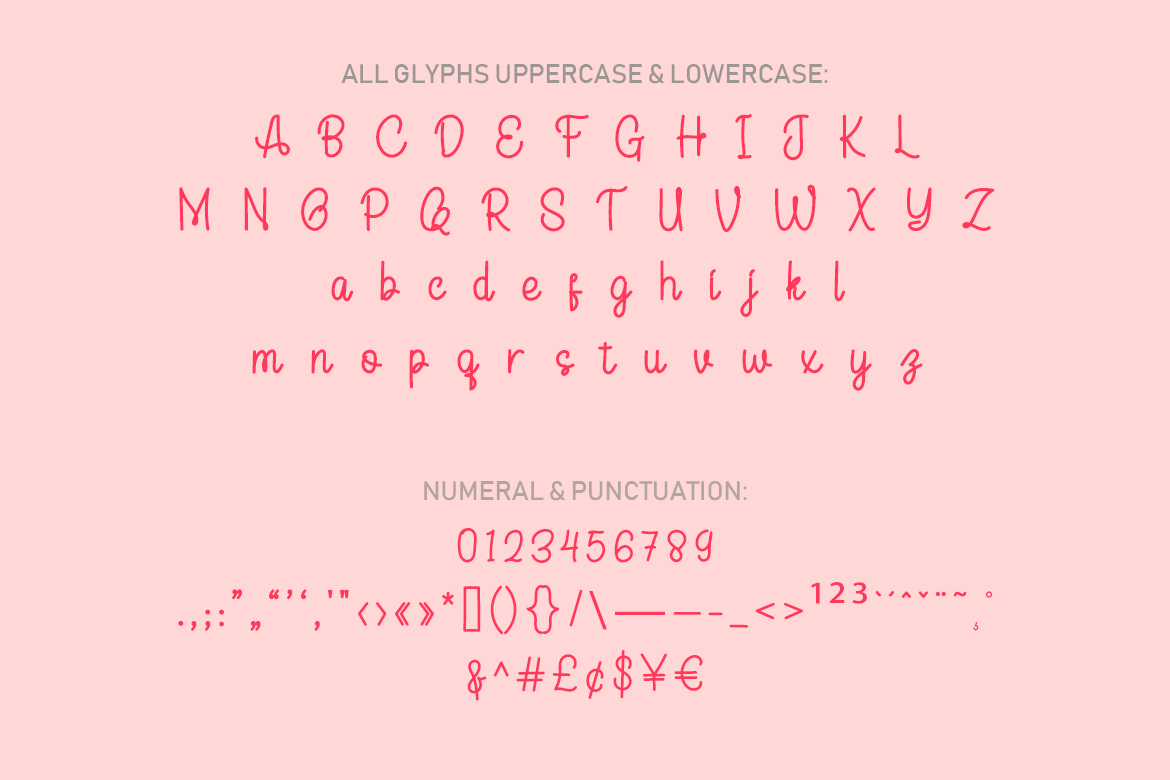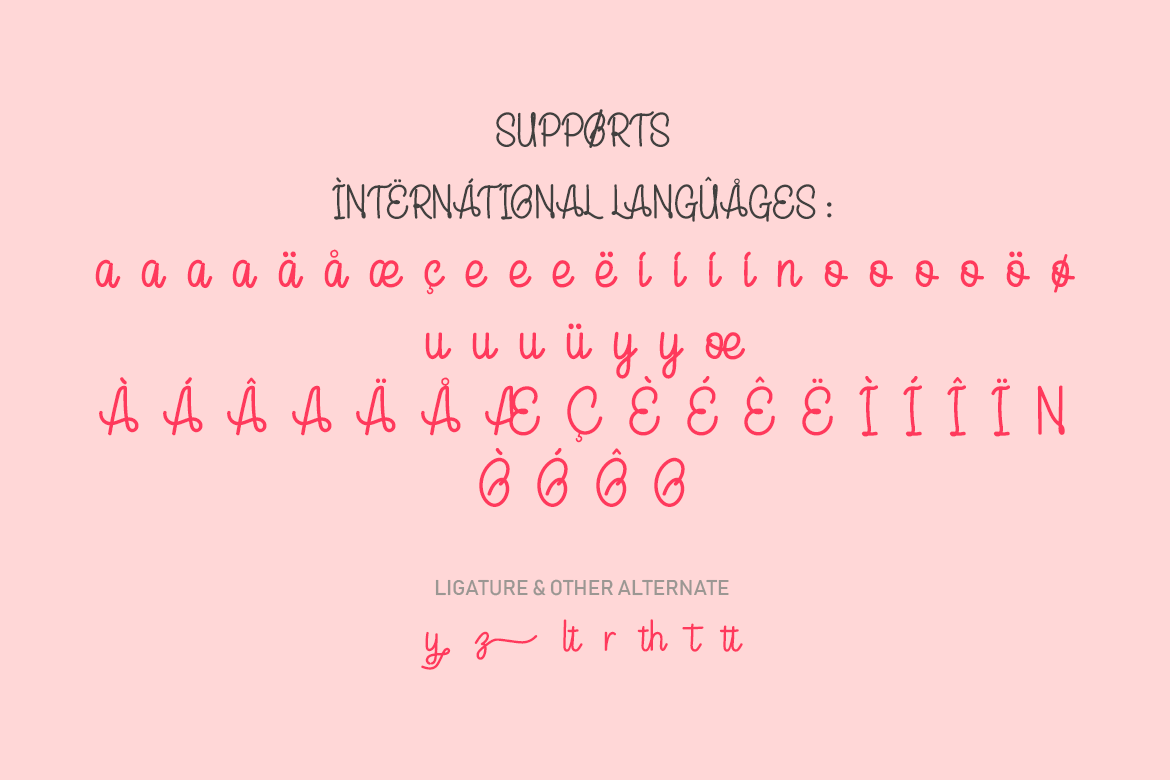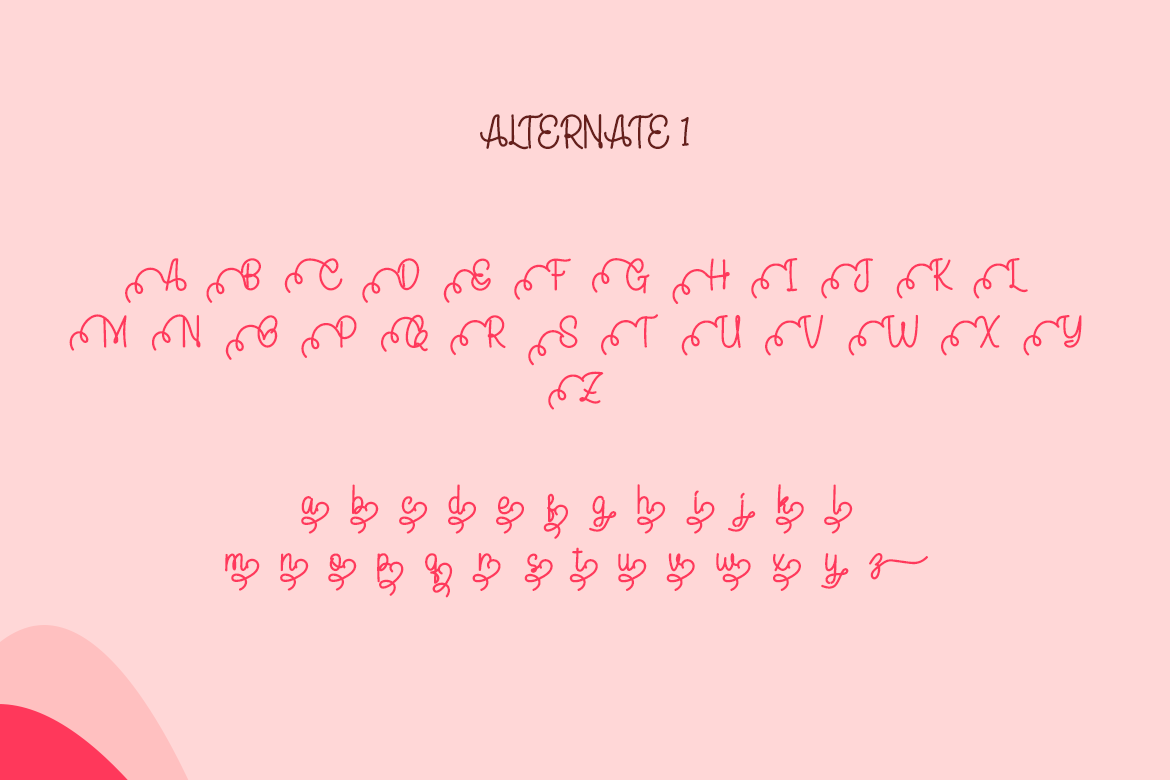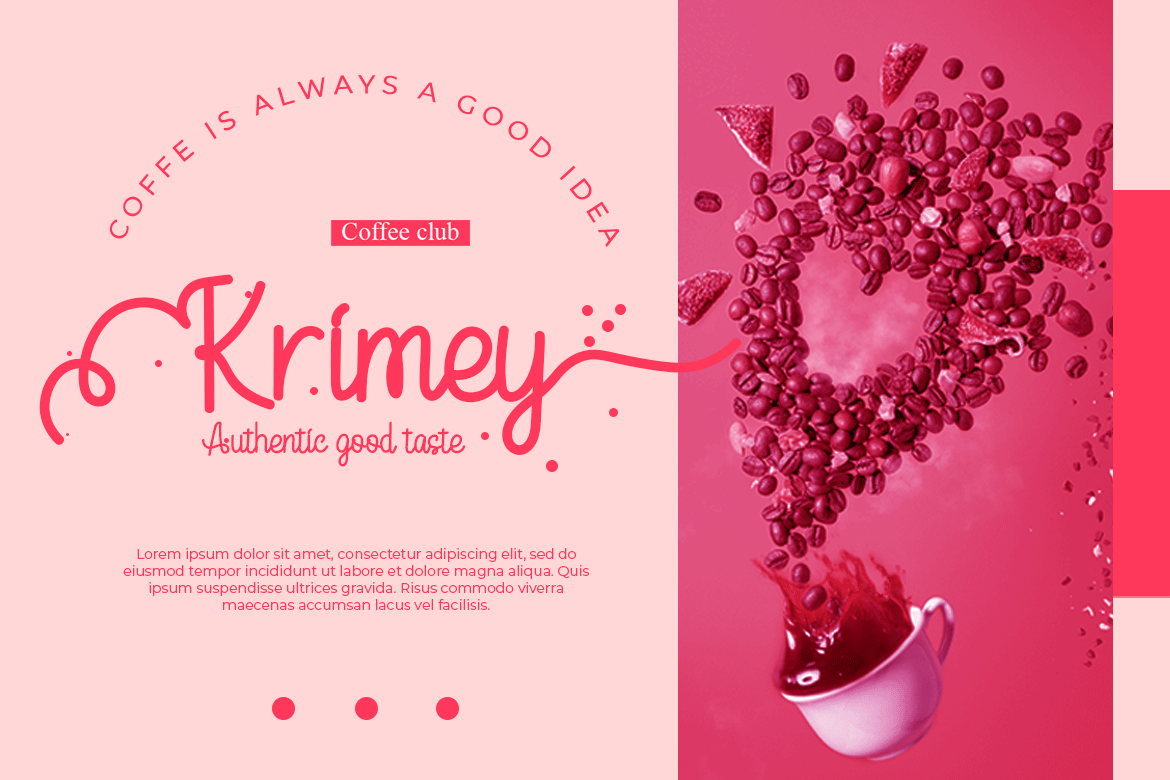
Flower Signature
Flower Signature is a beautiful handwritten font. It will elevate a wide range of design projects to the highest level, be it branding, headings, wedding designs, invitations, signatures, logos, labels, and much more!
This font is designed with a natural touch of handwriting which is refined to create a portion and composition that suits your needs. So this font is suitable for craft, children’s writing, adventure posters, food banner titles, wedding invitations, product packaging logos, quotes, social media page covers, furniture banner headlines, book covers, and much more.
• Fonts include multilingual support for; Afrikaans, Albanian, Croatian, Czech, Danish, Dutch, English, Estonian, Finnish, French, German, Hungarian, Italian, Norwegian, Polish, Portuguese, Slovak, Slovenian, Spanish, Swedish